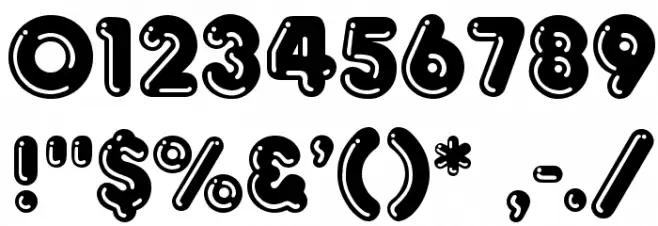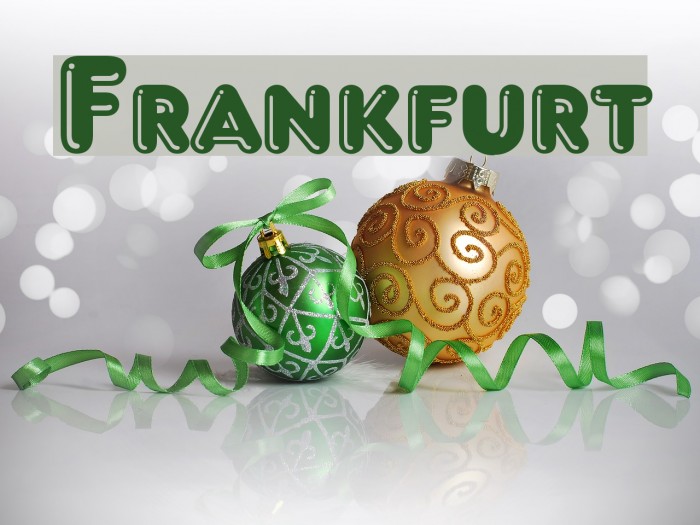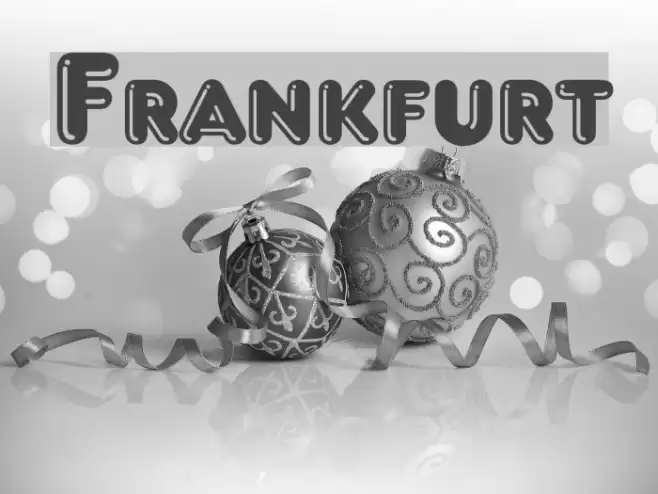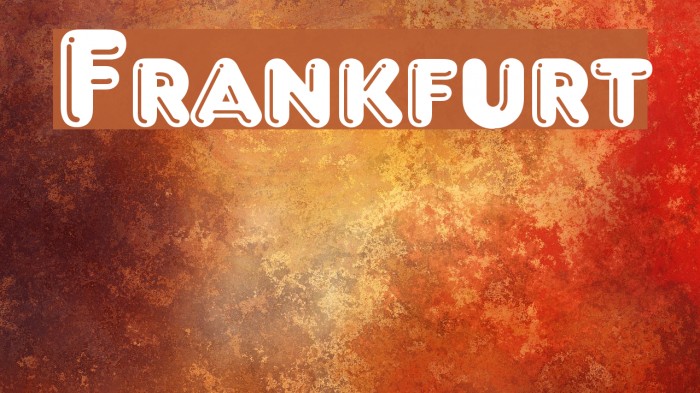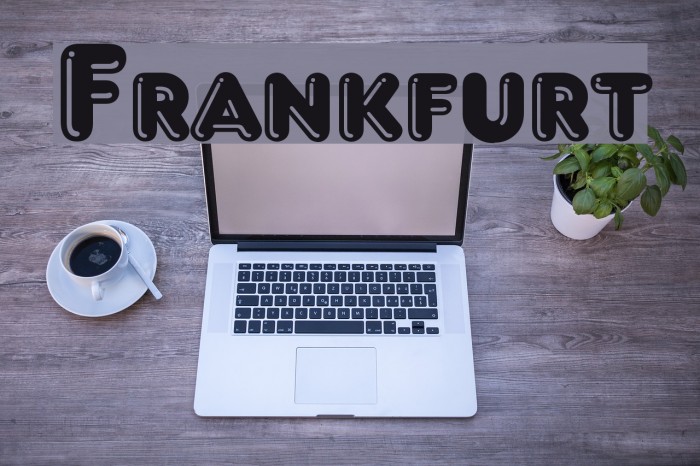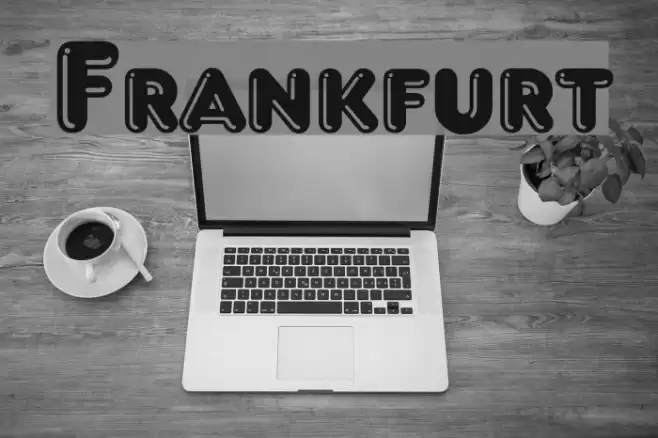
Frankfurt Font
Frankfurt Description
This font features a bold, playful style with a distinct three-dimensional effect created by its shadowed outline. The characters are rounded and have a thick, consistent stroke that gives them a strong presence. The uppercase and lowercase letters maintain a uniform height, contributing to a cohesive look. The numerals and special characters share the same boldness and rounded design, ensuring visual consistency across all elements. This font's unique style makes it stand out, with a modern yet slightly retro vibe that is both eye-catching and versatile.
| Proposed Projects | Ideal for projects that require a fun and engaging look, such as children's books, posters, branding for playful products, or event invitations. |